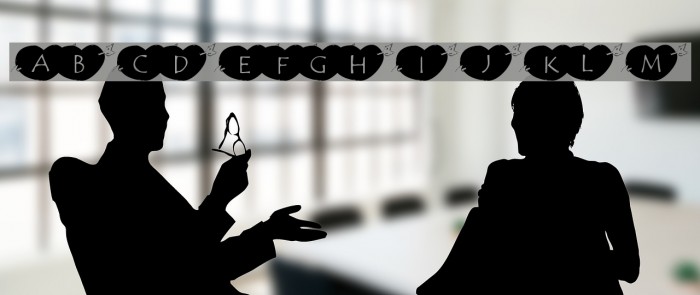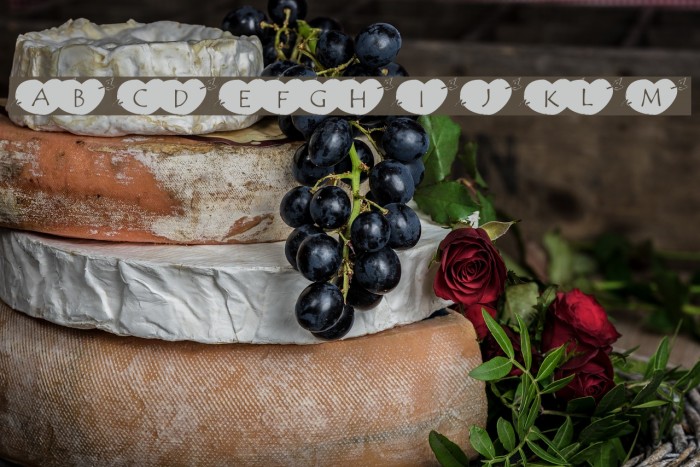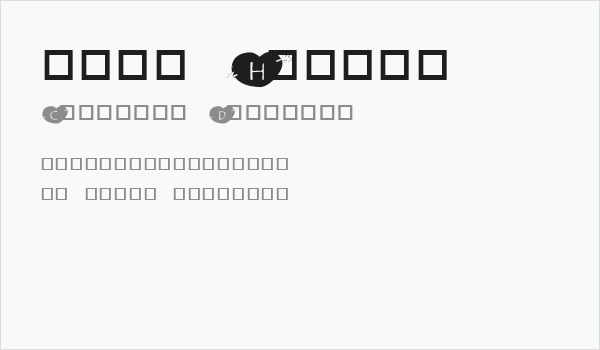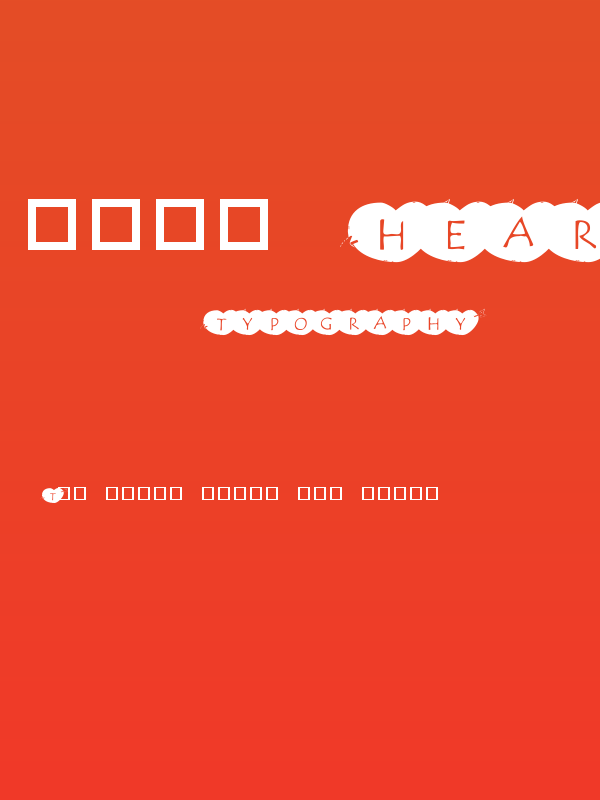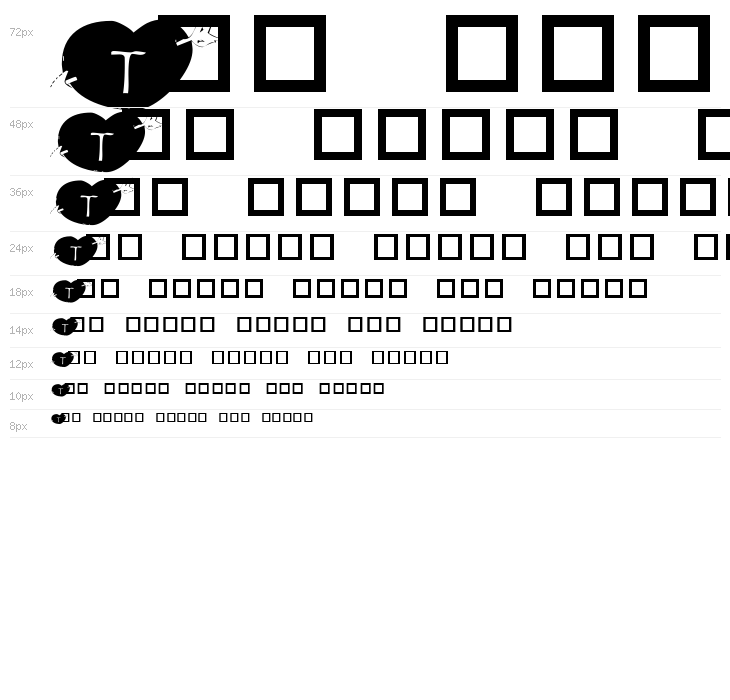
101! Hearts Font
101! Hearts Description
This playful and decorative font features each character enclosed within a heart shape, adding a whimsical and romantic touch to the text. The letters are bold and uppercase, with a consistent style that maintains readability despite the unique design. The heart shapes are filled with a solid color, and each one is adorned with a small arrow, enhancing the love-themed aesthetic. This font is perfect for projects that require a fun and affectionate vibe, such as Valentine's Day cards, wedding invitations, or any design that aims to convey warmth and love.
| Proposed Projects | Ideal for Valentine's Day cards, wedding invitations, love-themed posters, and playful branding. |